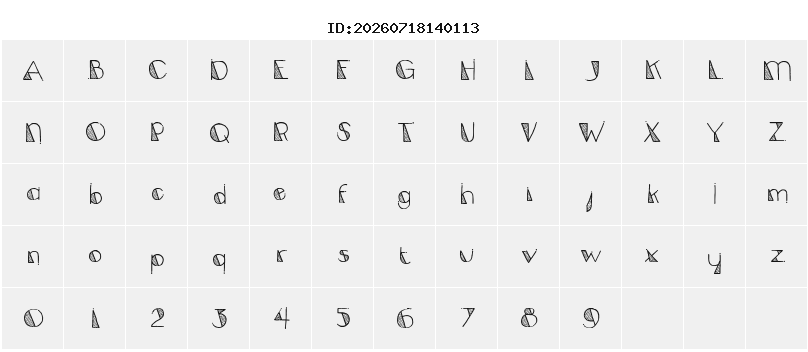
CK Wedge Preview
• Font Name: CK Wedge
• Full Font Name: CK Wedge
About CK Wedge.ttf
CK Wedge.ttf is a modern, elegant sans-serif font designed for ultimate readability and visual harmony. Perfect for branding, headlines, web design, and print materials.